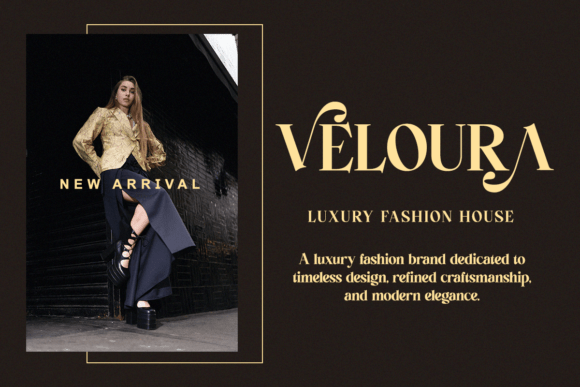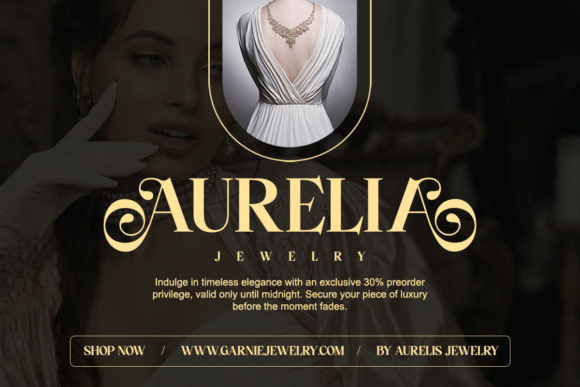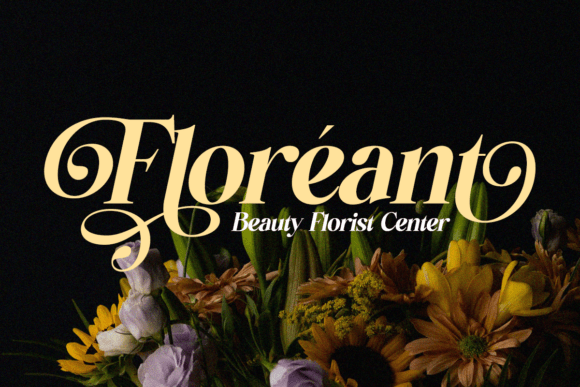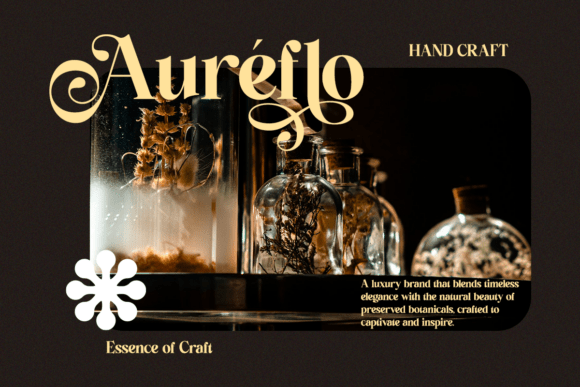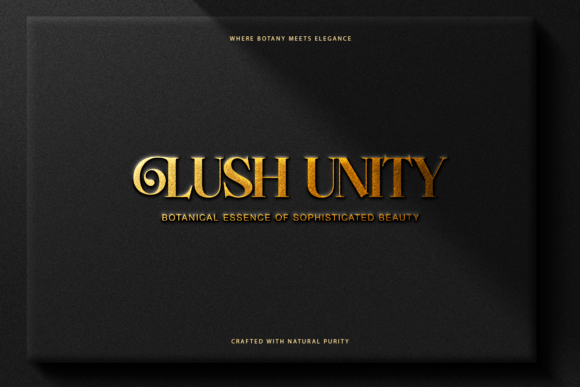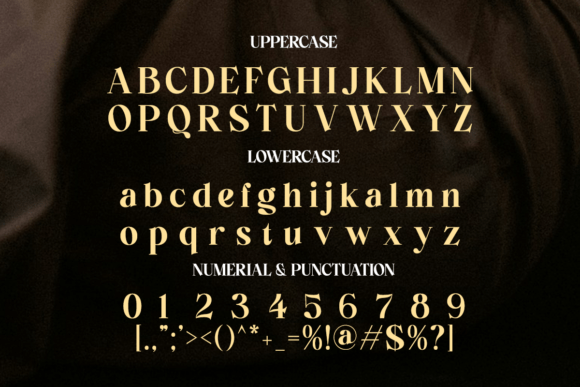
Bellanova Font: Elevate Your Design with Elegance and Luxury
In the world of typography, a font can make or break a design. For those seeking to add a touch of elegance and luxury to their projects, Bellanova Font is an exceptional choice. This stunning serif font boasts refined swashes, stylish ligatures, and glamorous high-contrast shapes, perfect for creating premium logos, wedding invitations, magazine titles, perfume packaging, and fashion branding.
The Essence of Bellanova Font
Bellanova Font is characterized by its feminine yet powerful character, making it an ideal choice for designers and crafters looking to add a touch of sophistication to their work. Its high-contrast shapes and refined swashes evoke a sense of luxury and glamour, while its stylish ligatures provide a level of elegance and refinement. Whether you’re working on a logo, invitation, or packaging design, Bellanova Font is sure to give your project a polished and exclusive look.
Perfect for Premium Designs
Bellanova Font is specifically designed for high-end designs, making it perfect for a range of applications, including:
- Premium Logos: Create a lasting impression with a logo that exudes luxury and sophistication.
- Wedding Invitations: Make your wedding invitation stand out with a font that’s both elegant and refined.
- Magazine Titles: Add a touch of glamour to your magazine title with a font that’s sure to turn heads.
- Perfume Packaging: Create a luxurious and eye-catching design for your perfume packaging that stands out on store shelves.
- Fashion Branding: Elevate your fashion brand with a font that’s both stylish and sophisticated.
Key Features of Bellanova Font
Bellanova Font comes with a range of features that make it an exceptional choice for designers and crafters, including:
- Refined Swashes: Add a touch of elegance to your design with refined swashes that evoke a sense of luxury.
- Stylish Ligatures: Create a sense of flow and continuity with stylish ligatures that add a level of sophistication to your design.
- Glamorous High-Contrast Shapes: Add depth and dimension to your design with high-contrast shapes that create a sense of drama and elegance.
Why Choose Bellanova Font?
With so many fonts available, why choose Bellanova Font? Here are just a few reasons why this exceptional font stands out:
- Unique and Exclusive: Bellanova Font is a one-of-a-kind font that’s sure to make your design stand out.
- Elegant and Refined: With its refined swashes and stylish ligatures, Bellanova Font is the perfect choice for designs that require a level of elegance and sophistication.
- Feminine yet Powerful: Bellanova Font’s feminine yet powerful character makes it an ideal choice for designs that require a touch of glamour and sophistication.
In conclusion, Bellanova Font is an exceptional choice for designers and crafters looking to add a touch of elegance and luxury to their projects. With its refined swashes, stylish ligatures, and glamorous high-contrast shapes, this stunning serif font is perfect for creating premium logos, wedding invitations, magazine titles, perfume packaging, and fashion branding. Its feminine yet powerful character gives every project a polished and exclusive look that’s sure to turn heads.
Get Ready to Elevate Your Design
Whether you’re a seasoned designer or a crafty DIY enthusiast, Bellanova Font is an exceptional choice for anyone looking to elevate their design. With its unique and exclusive character, elegant and refined features, and feminine yet powerful charm, Bellanova Font is sure to become a go-to font in your design arsenal. So why wait? Get ready to take your design to the next level with Bellanova Font.